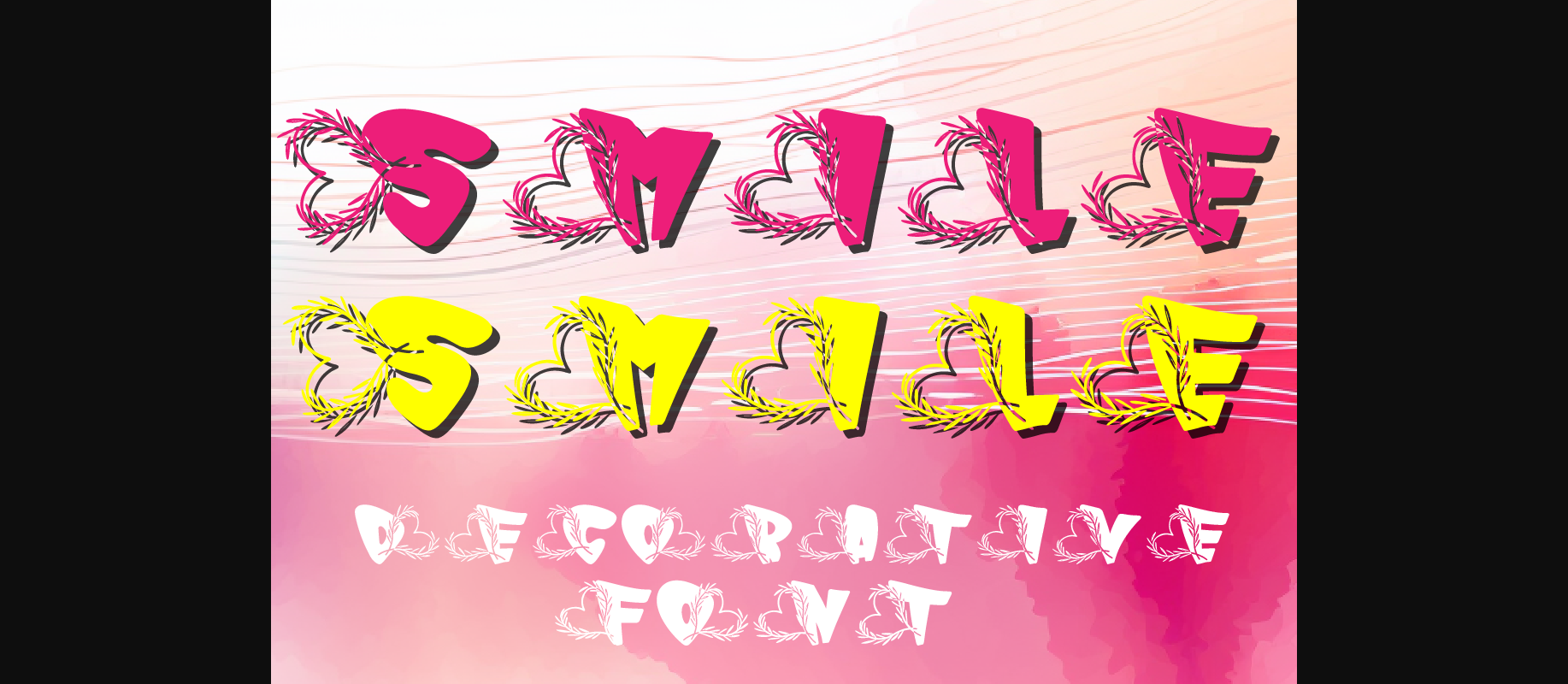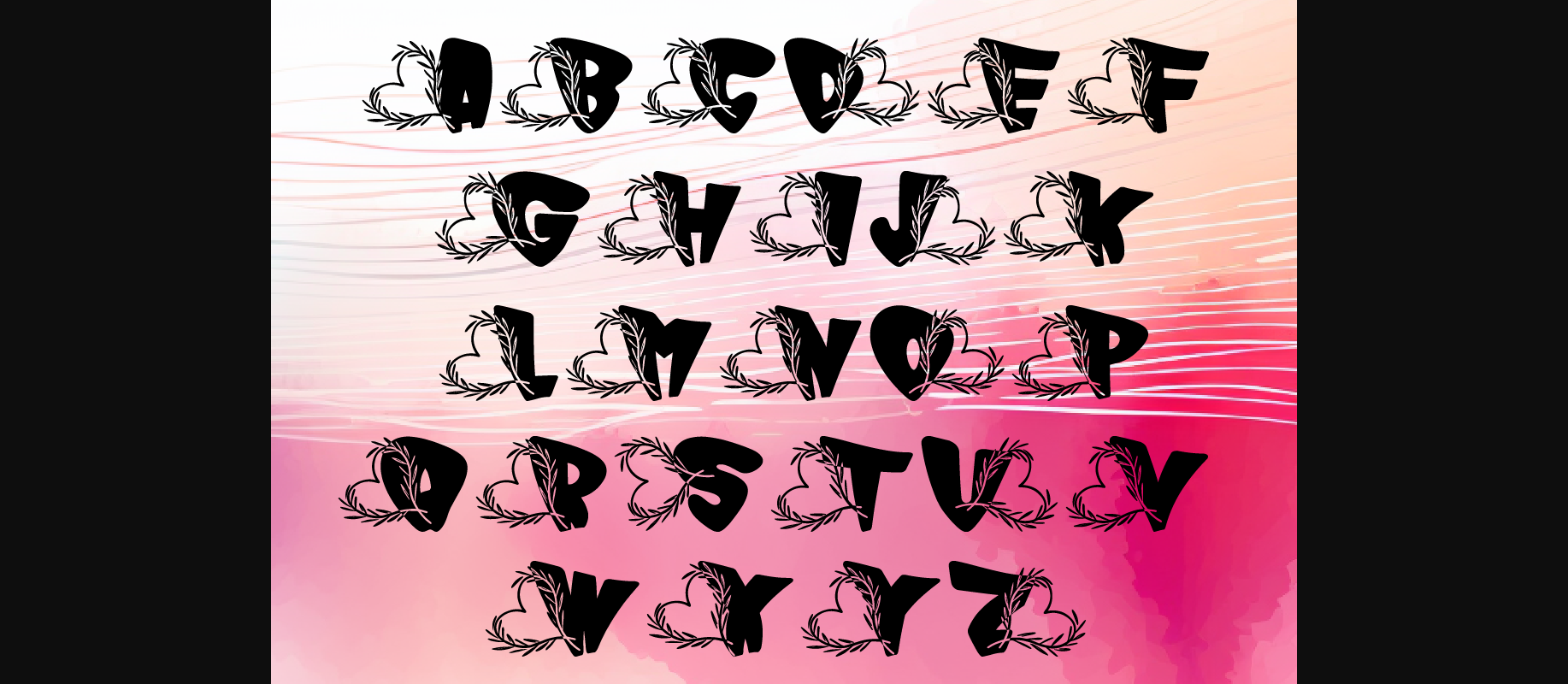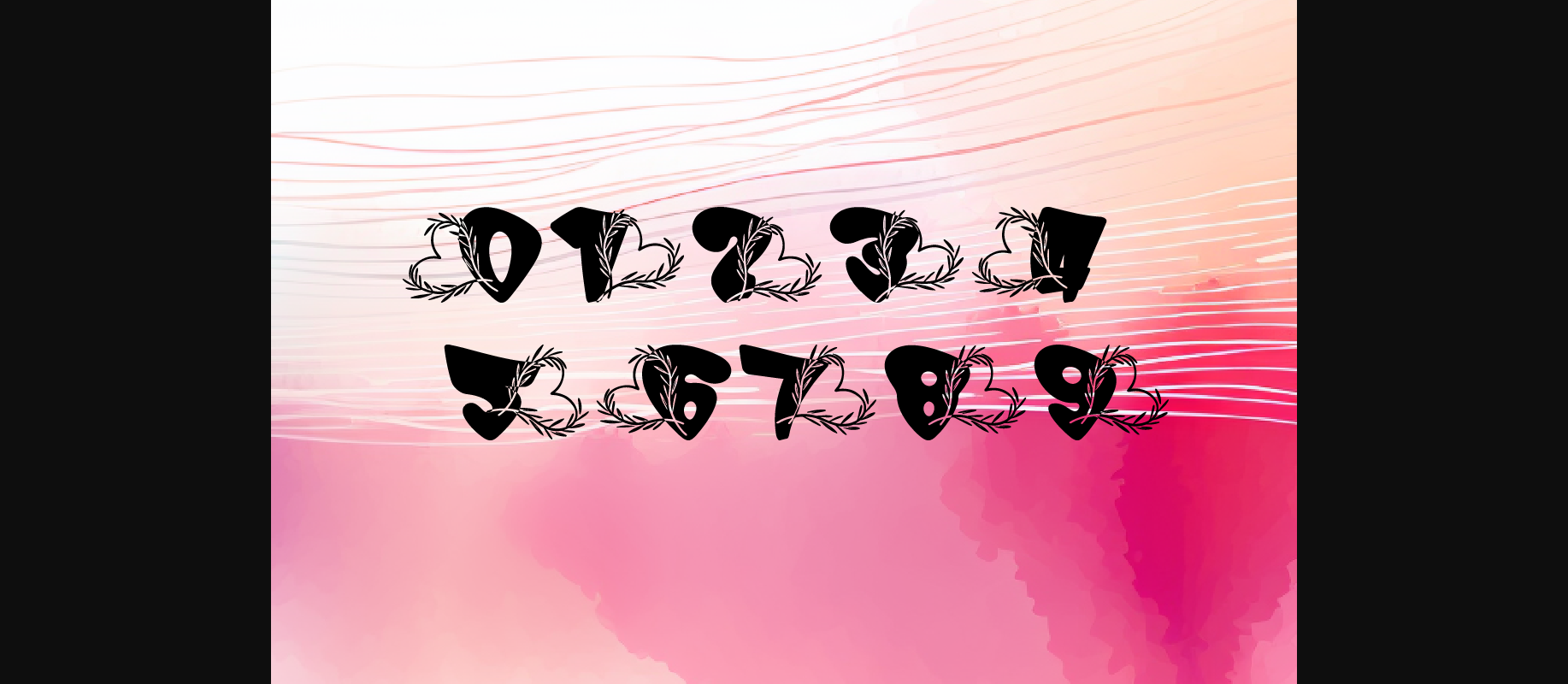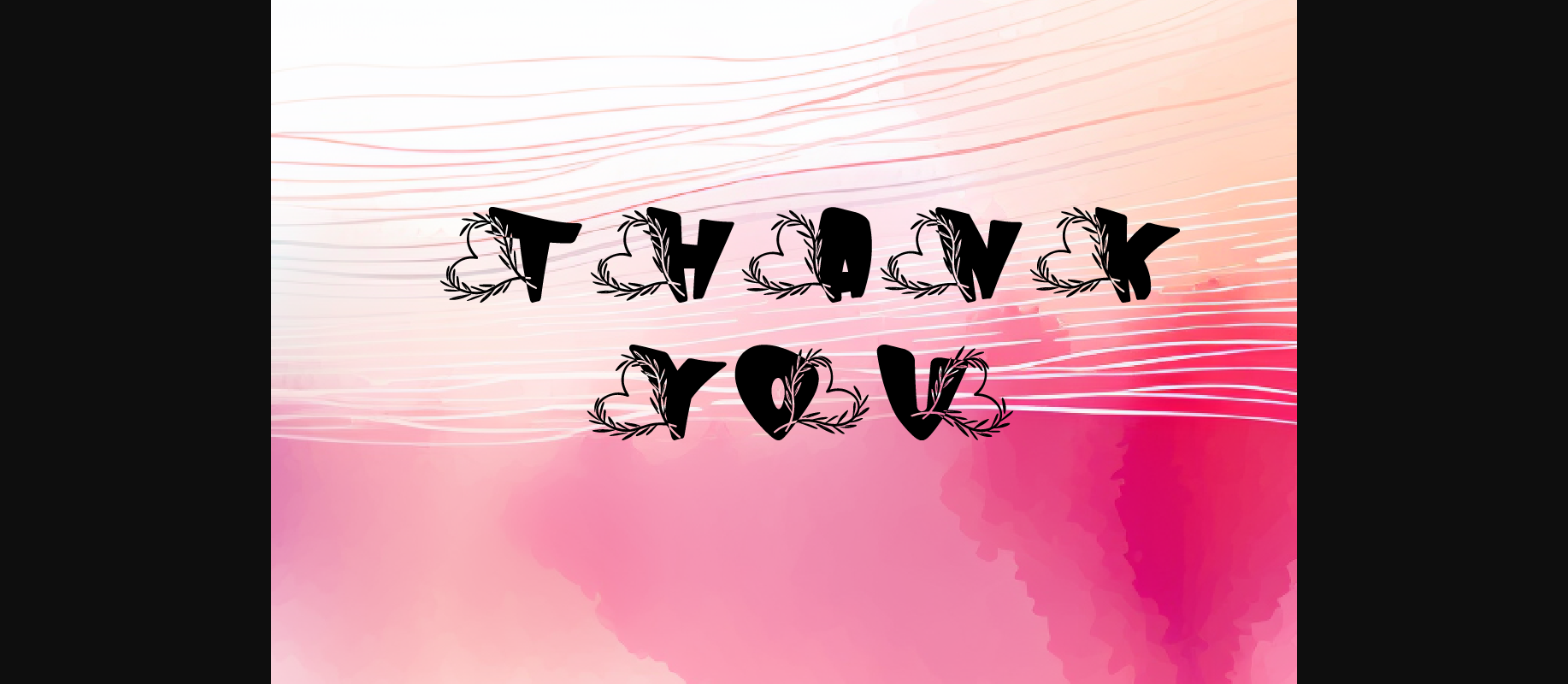
About Smile Smile Font
Introducing “Smile Smile ” – a delightful decorative font that adds a touch of romance, novelty, and cheerfulness to your creative endeavors. Each letter is adorned with intricate rosemary hearts, exuding warmth and affection.
With its set of 26 large letters and 10 numbers (0-9), “Smile Smile ” offers versatility for creative expression across various mediums. Whether you’re designing wedding invitations, crafting greeting cards, or enhancing digital artwork, this font can be applied to all fields of art.
Elevate your designs with the enchanting charm of “Smile Smile ” and watch as it transforms your projects into pixel-perfect expressions of love and happiness.